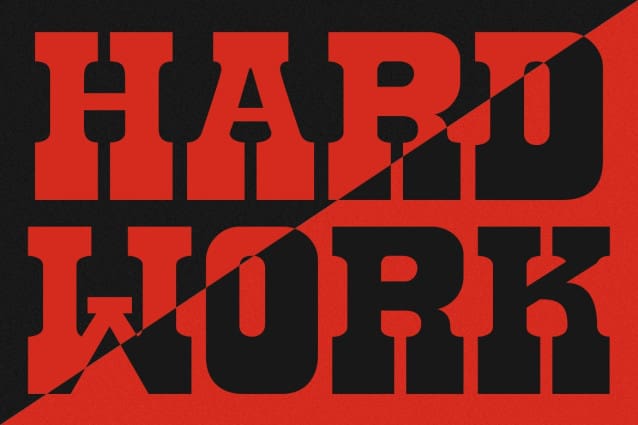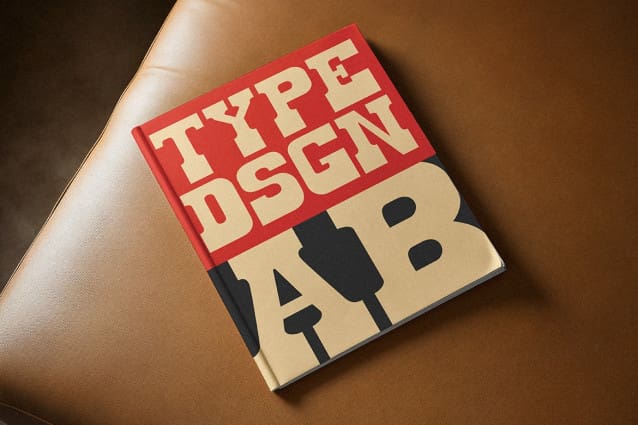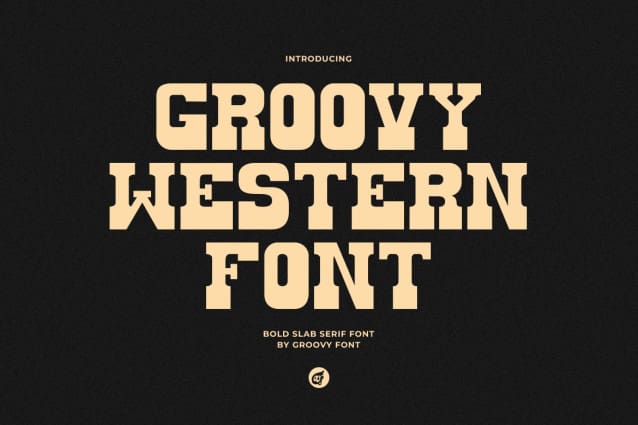
Groovy Western Font
Groovy Western Font is a bold slab serif font that combines elements of vintage typewriting with a modern Western twist. Its strong, thick lines and sturdy serifs give it a bold presence, making it a unique choice for designs that require a touch of ruggedness and sophistication. Whether used for headlines, logos, or branding, Groovy Western is sure to make a statement with its distinctive retro charm.